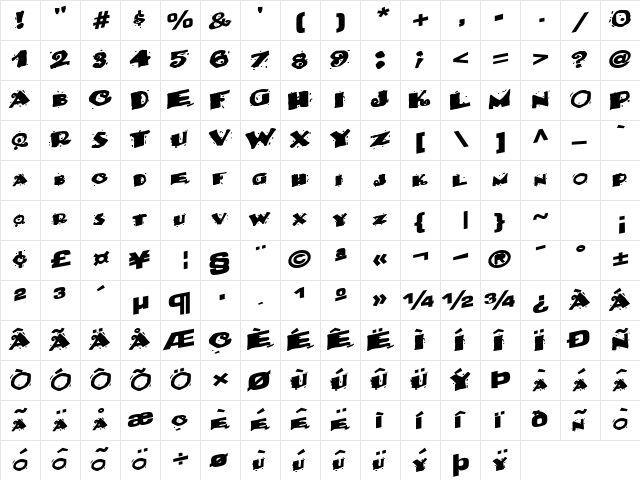
BackWater52 Bold
Design Context for BackWater52 Typeface
BackWater52 is a composed and adaptable typeface that performs quietly and consistently across a wide range of design contexts. Its bold stroke weight gives it real presence on the page.